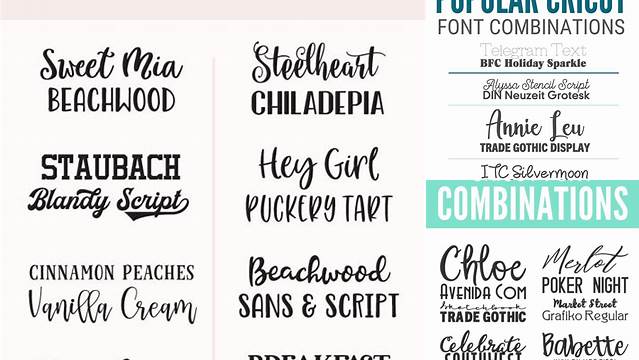
Best Cricut Font Pairings: A Complete Guide
Choosing the right fonts for your Cricut projects can be tricky, but it's also super important! The perfect font pairing can elevate your design from meh to amazing. In this guide, we'll dive into the wonderful world of Cricut fonts that go together, exploring everything from classic combinations to more modern and unexpected pairings. We'll cover a wide range of styles and uses, so you can find the perfect fonts for any project, whether it's a personalized gift, a home decor item, or a custom t-shirt. So, grab your favorite design software, and let's get started!
What are the Best Fonts for Cricut?
When considering the best fonts for Cricut, it's important to think about the overall aesthetic you're aiming for. Are you going for a classic and elegant look, or something more modern and playful? Some fonts cut cleaner than others, making them ideal for intricate designs. Others are bolder and more robust, perfect for vinyl decals or iron-on projects. We'll explore a variety of top font choices, highlighting their strengths and potential pairings, ensuring you have a versatile toolkit for all your crafting needs. The world of Cricut fonts that go together is vast and exciting, and we're here to help you navigate it with confidence.
Combining Cricut Fonts: A Beginner's Guide
For beginners, combining fonts can seem daunting, but don't worry, it's easier than you think! The key is to create contrast. Think about pairing a script font with a sans-serif font, or a bold font with a lighter font. This creates visual interest and makes your design more dynamic. We'll break down the basics of font pairing, explaining the fundamental principles of contrast, hierarchy, and readability. With a few simple tips and tricks, you'll be creating stunning font combinations in no time. Remember, the goal is to create Cricut fonts that go together harmoniously, so your message is clear and visually appealing.
Classic Font Combinations for Cricut
Certain font combinations are timeless for a reason – they just work! Think Serif and Sans-serif pairings like Times New Roman and Arial, or a delicate Script with a sturdy Block font. These classic combinations offer versatility for all kinds of projects, providing a foundation for elegant and readable designs. Exploring these tried-and-true pairings can be a great starting point for any Cricut crafter, offering a safe and stylish way to enhance your creations. Mastering these Cricut fonts that go together in a classic way ensures your designs remain timeless and professional.
Modern Font Pairings for Cricut Designs
If you're looking for something more contemporary, there are tons of modern font pairings to explore. Consider pairing a sleek, geometric sans-serif with a handwritten script for a touch of personality, or a bold display font with a clean, minimalist sans-serif for a striking statement. Modern font pairings can bring a fresh and trendy feel to your projects, making them stand out from the crowd. Discovering these Cricut fonts that go together in a modern way can elevate your projects and showcase your unique style.
Script Fonts That Pair Well with Cricut
Script fonts add elegance and flair to any project, but they can be tricky to pair. The best pairings often involve a simple sans-serif or a clean serif font. This prevents the design from becoming too cluttered and ensures the script font remains the focal point. We'll explore various script font styles and their ideal partners, providing inspiration for everything from wedding invitations to personalized gifts. Choosing the right complementary font ensures your chosen Cricut fonts that go together beautifully, creating a cohesive and stunning design.
Sans-Serif Fonts and Cricut: Perfect Matches
Sans-serif fonts are known for their clean and modern aesthetic, making them incredibly versatile. They pair well with almost anything, from delicate scripts to bold serifs. When using sans-serif fonts, consider the weight and size of the font to create contrast and visual interest. We'll delve into the diverse world of sans-serif fonts, showcasing their compatibility with various styles and providing guidance on creating balanced designs. Selecting Cricut fonts that go together with sans-serifs can lead to sleek and professional results, perfect for a range of projects.
Serif Fonts: Cricut Font Pairing Tips
Serif fonts exude a sense of tradition and sophistication, and they can add a touch of elegance to your Cricut projects. Pairing serifs with sans-serifs is a classic move, but you can also pair different serif styles for a more layered look. Keep in mind that readability is key when working with serif fonts, so choose your pairings carefully. We'll examine the nuances of serif font pairings, offering insights into creating harmonious combinations that enhance your designs. Understanding how Cricut fonts that go together with serifs allows you to craft sophisticated and visually appealing pieces.
Handwritten Fonts for Cricut: Pairing Ideas
Handwritten fonts bring a personal and charming touch to your projects. They're perfect for adding a human element to your designs, but they can sometimes be difficult to read if paired incorrectly. Opt for a clean and simple font to complement a handwritten font, ensuring your message remains clear and easy to understand. We'll explore a range of handwritten fonts and their ideal companions, helping you create designs that are both stylish and legible. Mastering the art of pairing Cricut fonts that go together with handwritten styles adds a unique and heartfelt touch to your creations.
Display Fonts: Cricut Pairing Strategies
Display fonts are designed to grab attention, making them perfect for headings and titles. They often have unique and bold designs, so it's important to pair them with a more neutral font for the body text. This creates a clear hierarchy and prevents the design from becoming overwhelming. We'll discuss effective strategies for pairing display fonts, focusing on balance and readability. Successfully combining Cricut fonts that go together with display fonts can make your projects pop and communicate your message effectively.
Inspiration for Unique Cricut Font Combinations
Need some fresh ideas? We'll share a gallery of inspiring font combinations to spark your creativity. From unexpected pairings to tried-and-true classics, these examples will help you discover new possibilities. Gathering inspiration from diverse sources broadens your creative horizons and empowers you to select Cricut fonts that go together in innovative ways.